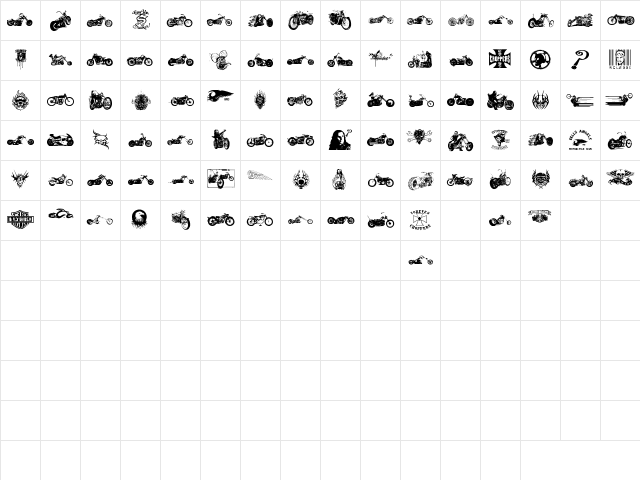
choppersforlife Regular Font Preview
choppersforlife Regular
choppersforlife Regular Font Details
Design Context for choppersforlife Typeface
choppersforlife is a composed and adaptable typeface that performs quietly and consistently across a wide range of design contexts.